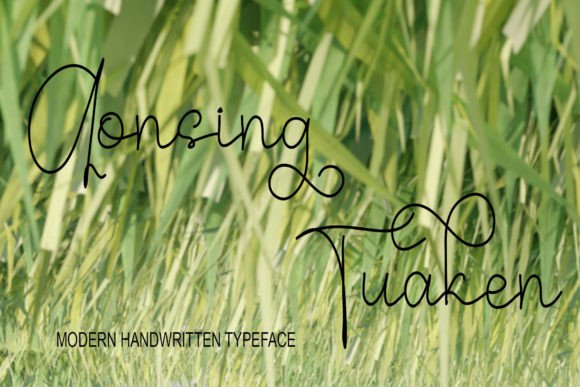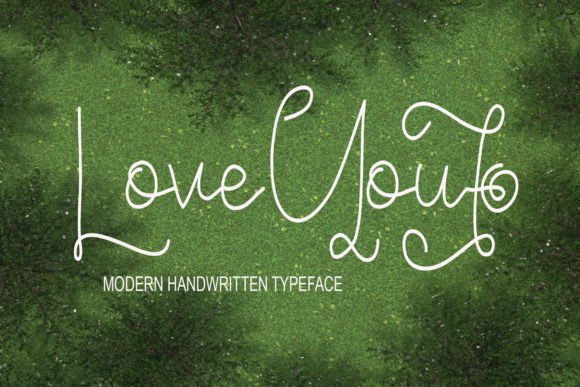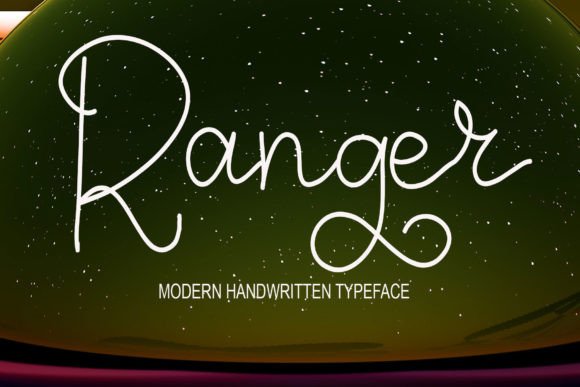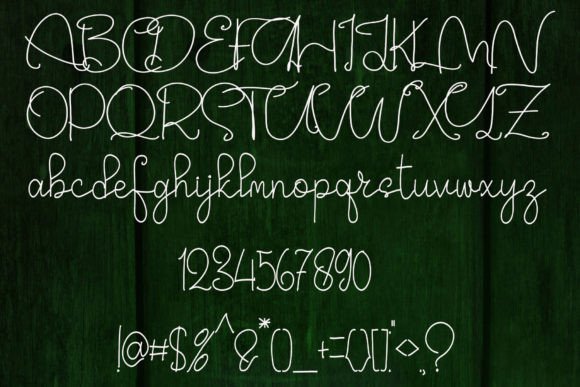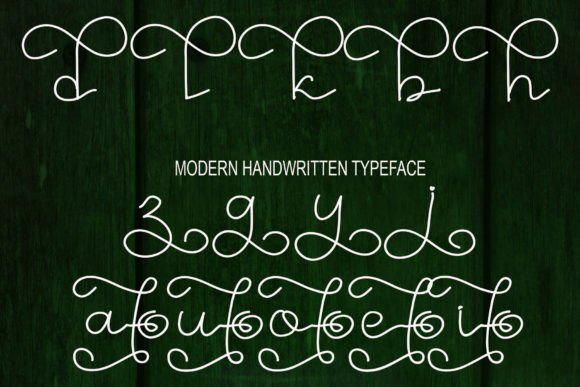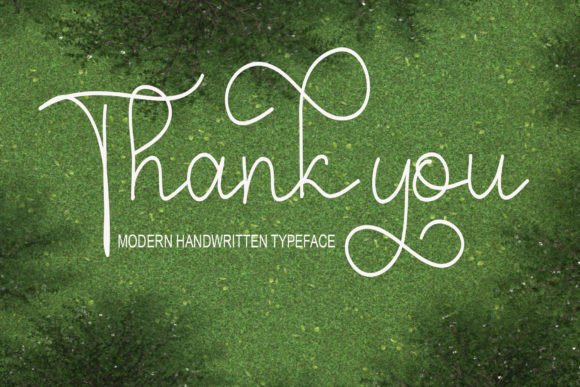
About Vandegta Font Download
The Vandegta Font Download is a simple handwritten script created with a natural hand-drawn style using a tablet. With a casual yet stylish appeal, this typeface adapts to a wide range of design needs. Its minimalistic structure makes it versatile, while its cool handwritten flow ensures that your projects always look modern and engaging.
A Simple Handwritten Script with Modern Style
Vandegta blends simplicity with creative handwritten charm. Unlike over-decorated fonts, this Vandegta script font emphasizes clarity and style without unnecessary details. As a result, it is excellent for projects that demand professionalism with a touch of creativity.
Perfect for Invitations and Wedding Stationery
Event stationery looks more refined when designed with handwritten typography. The Vandegta Font is a great choice for wedding invitations, thank you notes, and personal cards. Moreover, its clean handwritten strokes ensure your stationery feels heartfelt and polished.
Branding and Business Cards with Vandegta Font
Typography plays a vital role in branding, and the Vandegta handwritten font is perfect for logos, business cards, and product advertising. In addition, its stylish handwritten form creates a strong and approachable brand identity.
Posters, Ads, and Creative Displays
The Vandegta Font Download works beautifully for advertisements, posters, and creative displays. Whether you are designing product ads, promotional flyers, or event banners, it ensures your text looks both clear and stylish.
Digital Design and Websites
In the online world, fonts must balance readability with visual appeal. The Vandegta typeface integrates seamlessly into websites, blogs, and social media content. Its handwritten rhythm makes digital projects look personal and modern.
Why Designers Choose Vandegta Typeface
Designers often look for fonts that are simple yet stylish. Many handwritten fonts can feel either too plain or overly complex, but the Vandegta handwritten script keeps its balance. It stays easy to read while adding a modern handwritten edge, making it a reliable option for different creative uses.
Add Stylish Simplicity to Your Projects Today